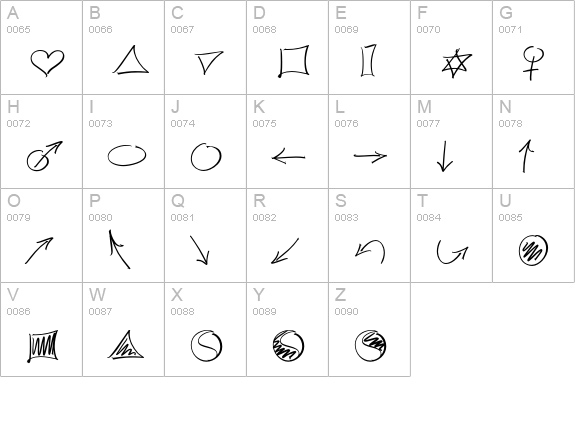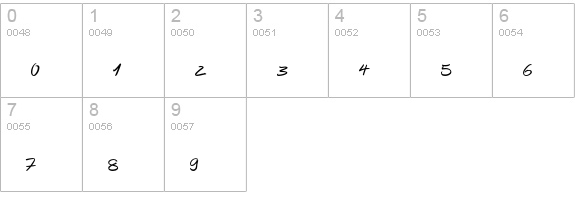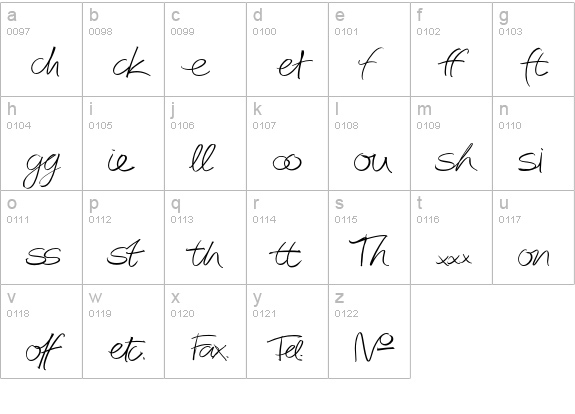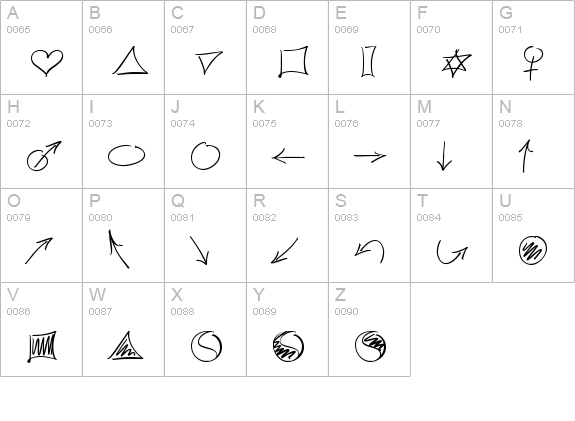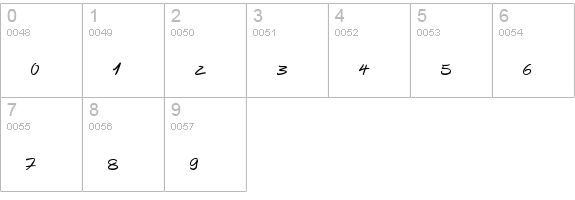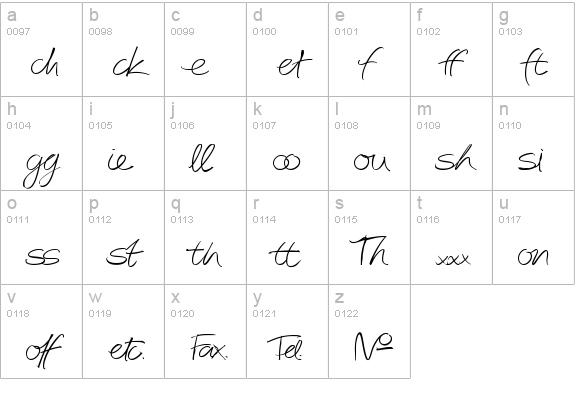
AutographScriptEF-LightExtras is a beautifully crafted font that adds an elegant touch to any design project. With its delicate curves and sophisticated style, this font is perfect for creating stunning invitations, greeting cards, or branding materials. The free-flowing script exudes a sense of grace and charm, making it a versatile choice for both personal and professional use. What makes AutographScriptEF-LightExtras even more appealing is that it is freely available to download at FontsMarket.com. Now you can elevate your designs with this exquisite font without any cost. Don't miss out on the opportunity to enhance your projects with the timeless beauty of AutographScriptEF-LightExtras. Download it today and let your creativity shine!